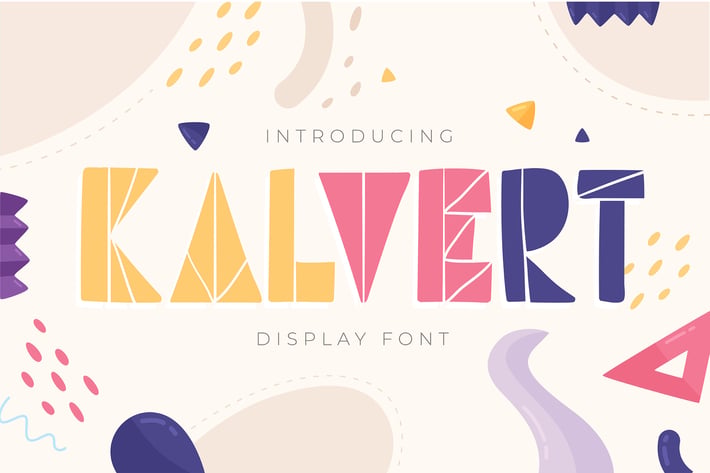
Kalvert | Display Font
Kalvert | Display Font with a calligraphy style, So beautiful on invitation like greeting cards, branding materials, business cards, quotes, posters, and more!